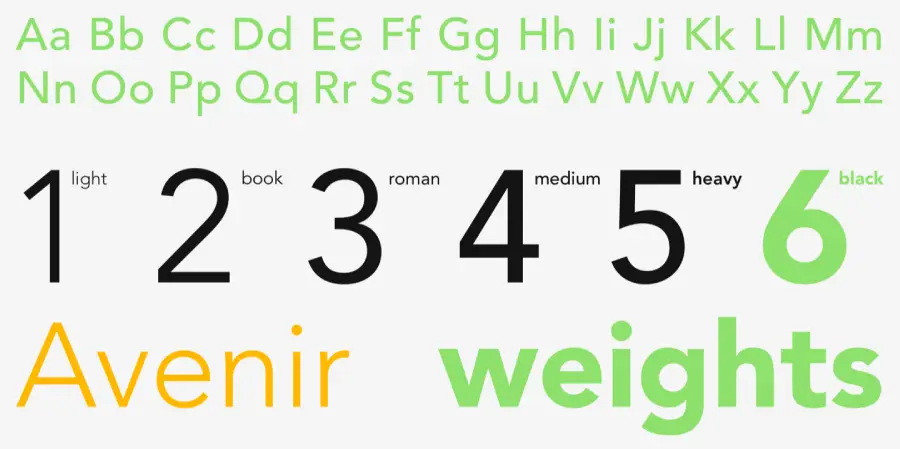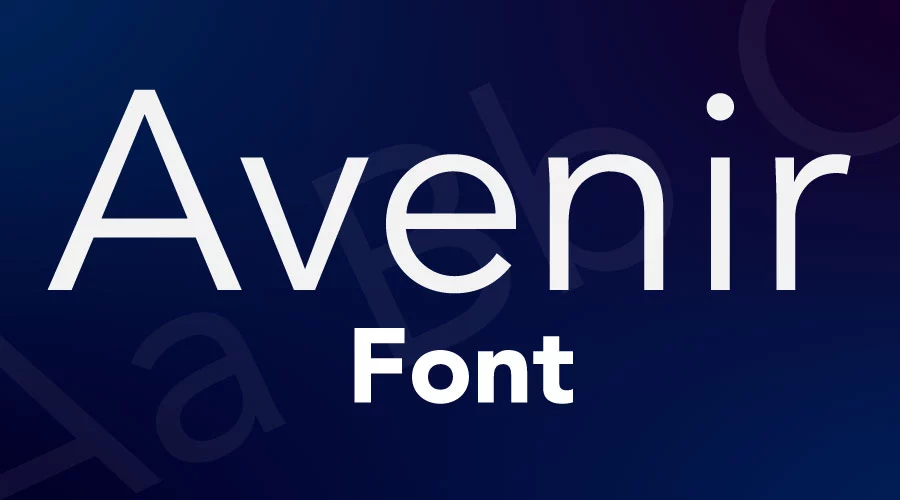
Avenir font is a sans-serif typeface designed by Adrian Frutiger in 1988 and released by Linotype GmbH. This font was intended to be a more humanist counterpart to the geometric sans-serifs popular at the time. This font is characterized by its relatively wide letterforms and subtle, curved features. It is one of the last typefaces Frutiger designed before his death in 1998. The name of the typeface derives from the French word for “future”. this font was designed to reflect future optimism and hope. This font is actually inspired by both Univers and Futura fonts. Many people have used it for corporate and personal branding in the last few years because it is versatile and easy to read.
The Avenir typeface family consists of six fonts: light, book, Roman, medium, heavy, and black. Each font contains Roman and italic versions in upright and oblique styles. There is also a set of ornaments with the fonts. The typeface can be purchased individually or in a bundle with the Frutiger family (Frutiger Serif and Frutiger Monospace).
It was further updated and expanded by Linotype. The updated version is called Avenir Next. It was the result of a collaboration between Adrian Frutiger and Akira Kobayoshi. The goal of the project was to improve the technical standards and compatibility of Avenir font, as well as to add more weights and styles to the family. Avenir Next font has 24 fonts in total, including regular, italic, condensed, and condensed italic versions. Avenir Next font also has improved legibility and readability for both print and digital media. You can learn more and download it from from our website
Avenir Font Use
Fonts are an essential part of the design. With many different typefaces, knowing which one is right for your project can be confusing. If you’re looking for a modern font that will give your work a sleek, contemporary look, Avenir is an excellent option.
Avenir has been used for corporate identity programs by companies such as Lufthansa (1996), Nestlé (1997), and Cadillac (2002). It has been used for magazines like National Geographic, The New York Times Magazine, and Vogue. It has also been seen on book covers, such as Michael Cunningham’s novel “The Hours” (1998), Paul Auster’s novel “Invisible” (2000), and Alan Hollinghurst’s novel “The Line of Beauty” (2004).
The typeface is still used a lot today, on book covers, magazines, and newspapers worldwide.
Fonts Family
- Avenir Pro 35 Light
- Avenir Pro 35 Light Oblique
- Avenir Pro 45 Book
- Avenir Pro 45 Book Oblique
- Avenir Pro 55 Roman
- Avenir Pro 55 Oblique
- Avenir Pro 65 Medium
- Avenir Pro 65 Medium Oblique
- Avenir Pro 85 Heavy
- Avenir Pro 85 Heavy Oblique
- Avenir Pro 95 Black
- Avenir Pro 95 Black Oblique
About The Avenir Font Designer
Adrian Frutiger was born on May 29, 1924, in Münsterlingen, Switzerland. He studied at the Kunstgewerbeschule Zürich from 1940 to 1943 and then at the Kunstgewerbeschule Basel from 1944 to 1946. He began working for Deberny & Peignot as a typeface designer in 1948. In 1957, he began working as a freelance designer and consultant. He was involved in the development of the Univers family and other typefaces such as Avenir, Scala, and Frutiger.
In 1988, he founded his own design studio, Adrian Frutiger Typeface Design GmbH. His work has earned him many awards, such as an honorary doctorate from the University of Reading (U.K.) in 1997 and the prestigious Prix Charles Peignot in 1998. The American Institute of Graphic Arts named him one of the “Masters of 20th Century Design” in 2000.
His typefaces have been used for corporate identity programs by companies such as AT & T (Sans Serif), Nestlé (Courier), Volkswagen (Neue Haas Grotesk), BMW (Frutiger), and Swissair (Frutiger). They have been cited in many magazines and newspapers, such as The New York Times, The Financial Times, Le Monde, and DIE ZEIT. It has also been used for book covers, such as the U.S. edition of Philip Roth’s novel “American Pastoral” (1998) and the French edition of Michael Cunningham’s novel “The Hours” (2003).